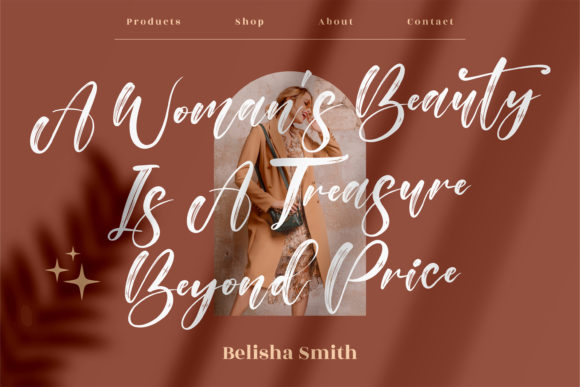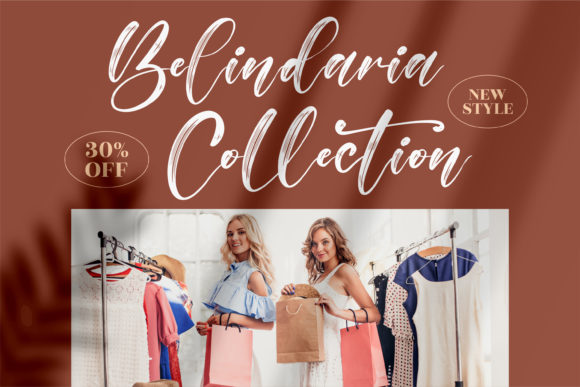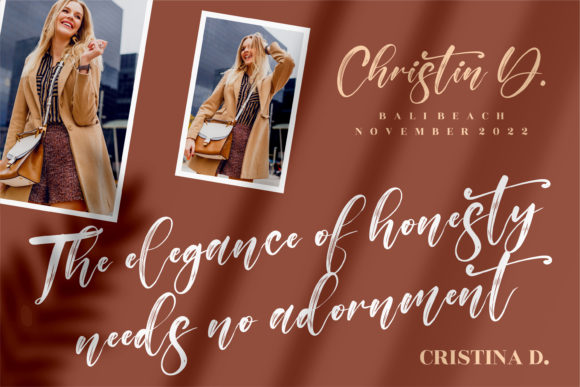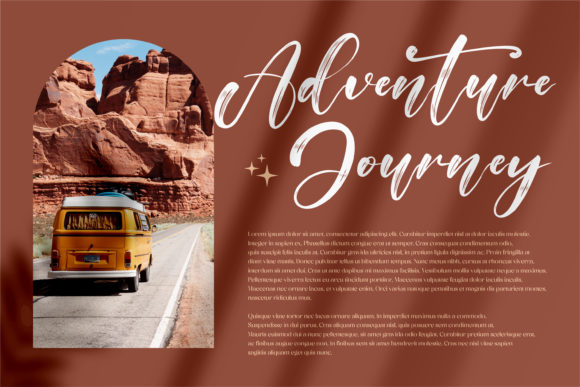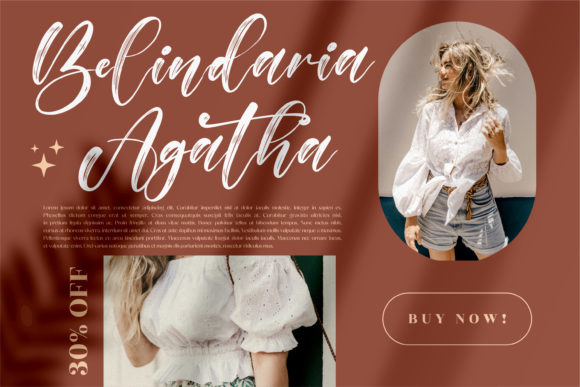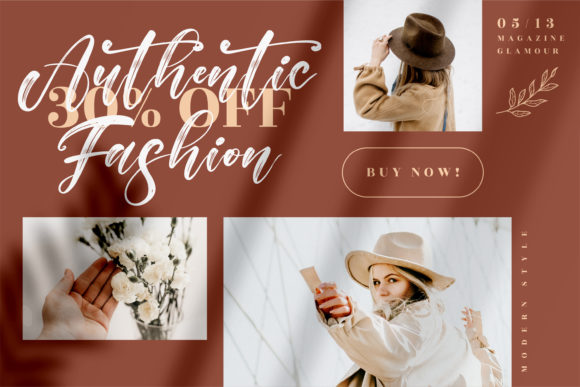
Meet Your New Favorite Font: Alisabela Brushley Font
You know that moment when you’re brainstorming ideas for a special project, and suddenly, everything clicks into place? You envision the perfect design, the ideal color palette, and the perfect font to tie it all together. That’s exactly what happens when you discover the Alisabela Brushley Font. This stunning, brushed script font is the perfect addition to any design project, and we can’t wait to share its magic with you.
The Alisabela Brushley Font is a versatile and elegant font that’s perfect for creating gorgeous wedding invitations, beautiful stationery art, and eye-catching social media posts. With its ravishing style, it’s sure to make your designs stand out from the crowd. Whether you’re a seasoned designer or a creative enthusiast, the Alisabela Brushley Font is a valuable asset that will elevate your work to the next level.
- Unique Characteristics: This font features elegant brush script strokes, making it perfect for creating a luxurious and high-end look in designs, such as wedding invitations, luxury branding, and fine art.
Designer Review: Alisabela Brushley Font
I recently had the chance to work with the Alisabela Brushley font, and I have to say, it’s a mixed bag. Here are my thoughts:
- Unique flair**: The Alisabela Brushley font has a distinct, hand-painted feel that’s perfect for adding a touch of whimsy to your designs.
- Good legibility**: Despite its brush-like appearance, the font is surprisingly easy to read, even at smaller text sizes.
- Limited font weight options**: The Alisabela Brushley font is available in only a few weights, which can make it less versatile for complex typography projects.
- Not ideal for body text**: While the font is great for headlines and titles, it’s not the best choice for large blocks of body text due to its unique, hand-painted feel.
- Some letterforms may not be perfect**: A few of the letterforms, such as the ‘k’ and ‘q’, have a slightly imperfect shape that may not be to everyone’s taste.
Overall, I think the Alisabela Brushley font is a great choice for designers who want to add a touch of personality to their work. However, it’s not a one-size-fits-all solution, and you may find that it’s better suited to certain projects than others.
Tips for Getting the Most Out of the Alisabela Brushley Font
Use the Alisabela Brushley font to add a touch of elegance and sophistication to your designs.
Pair the font with other elegant fonts to create a cohesive look.
Use the font in conjunction with other design elements, such as graphics and images, to create a visually appealing design.
The Alisabela Brushley font is suitable for a variety of design applications, including:
Business cards and letterheads
Menus and brochures